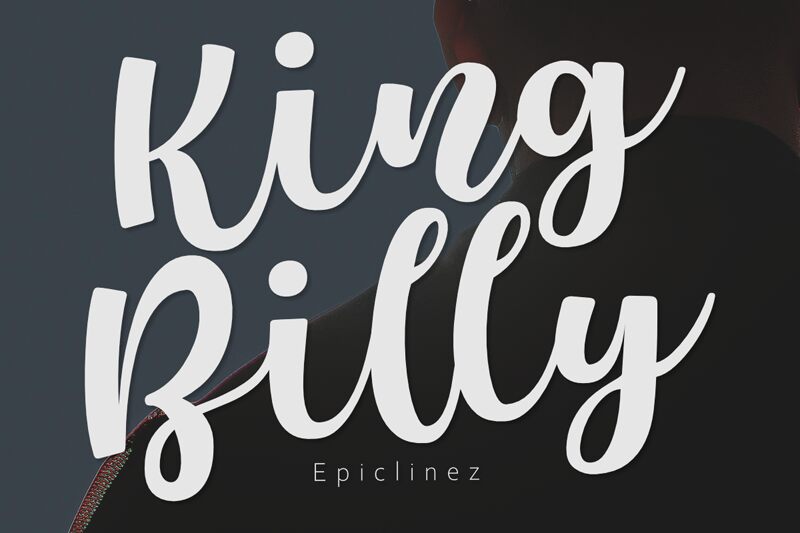
Introducing King Billy, a mesmerizing calligraphy font with a bold weight. Created by the talented designer epiclinez, this font exudes elegance and sophistication. With its fluid strokes and graceful curves, King Billy is perfect for projects that demand a touch of luxury and refinement. From wedding invitations to high-end branding, this font adds an air of prestige to any design. Whether you're working on a fashion magazine layout or crafting an exquisite logo, King Billy will captivate your audience with its timeless charm and artistic flair. Elevate your designs with the regal allure of King Billy!